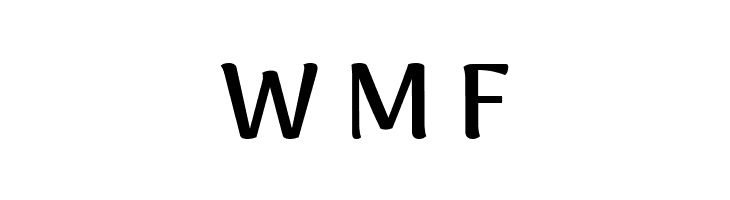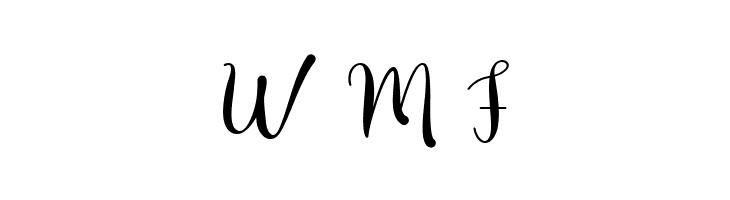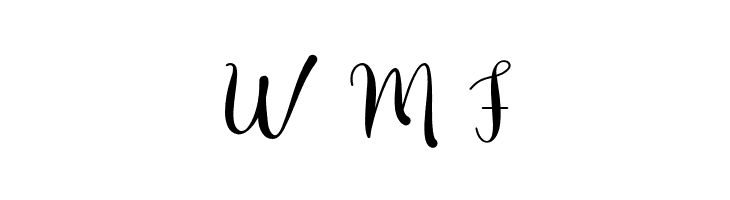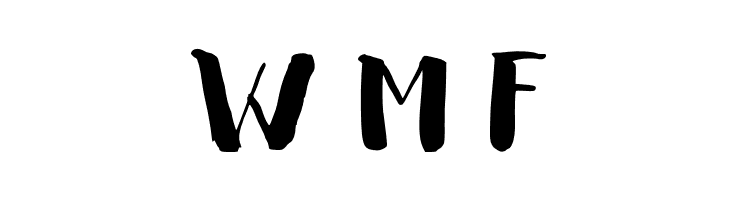
• ArimaMadurai-ExtraBold
A bold, rounded font with a playful yet sophisticated style.
• ArimaMadurai-ExtraLight
A modern, extra light sans-serif font with a sleek and airy appearance.
• ArimaMadurai-Light
A clean, modern font with elegant proportions and consistent stroke width.
• ArimaMadurai-Medium
A modern, versatile font with clean lines and a friendly appearance.
• ArimaMadurai-Regular
A modern and elegant font with a friendly, approachable design.
• ArimaMadurai-Thin
A modern, thin sans-serif font with a clean and elegant design.
• arinda
A bold, brush-style handwritten font with dynamic strokes.
• Arinoe
A bold, rounded font with a playful and approachable style.
• Arionna
A modern, elegant script font with a handwritten aesthetic.
• Arionna
A playful and elegant script font with flowing, cursive characters.